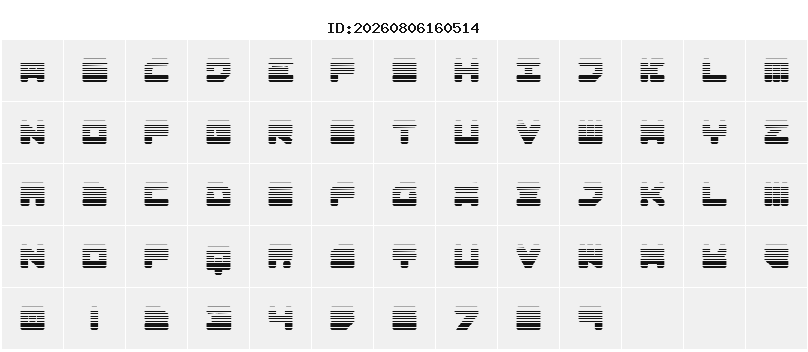
• Font Name: Omega-3 Gradient
• Full Font Name: Omega-3 Gradient
About Omega-3 Gradient.ttf
Omega-3 Gradient.ttf is a modern, elegant sans-serif font designed for ultimate readability and visual harmony. Perfect for branding, headlines, web design, and print materials.